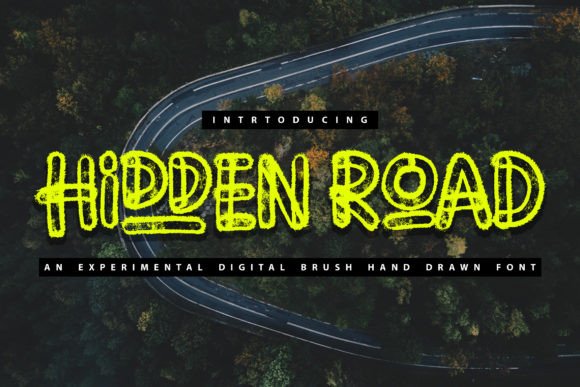
Hidden Road Font
Step into the fantastic realm of Hidden Road Font, where creativity takes center stage and your designs become extraordinary! This captivating display font embodies the perfect blend of modern charm and handwritten flair, promising to elevate your visual creations to new heights.
Crafted with meticulous precision by the talented Vunira, Hidden Road Font exudes a playful yet sophisticated character. Its whimsical strokes dance across the page, evoking a sense of carefree joy and endless possibilities. Whether you're crafting captivating memes, designing eye-catching social media posts, or simply seeking a touch of uniqueness in your projects, this font is a true gem.
Embrace the transformative power of Hidden Road Font and embark on a creative journey where imagination knows no bounds. Its versatility empowers you to express yourself seamlessly, from playful and lighthearted to bold and unforgettable. Each letterform is a work of art, designed to spark joy and captivate your audience.